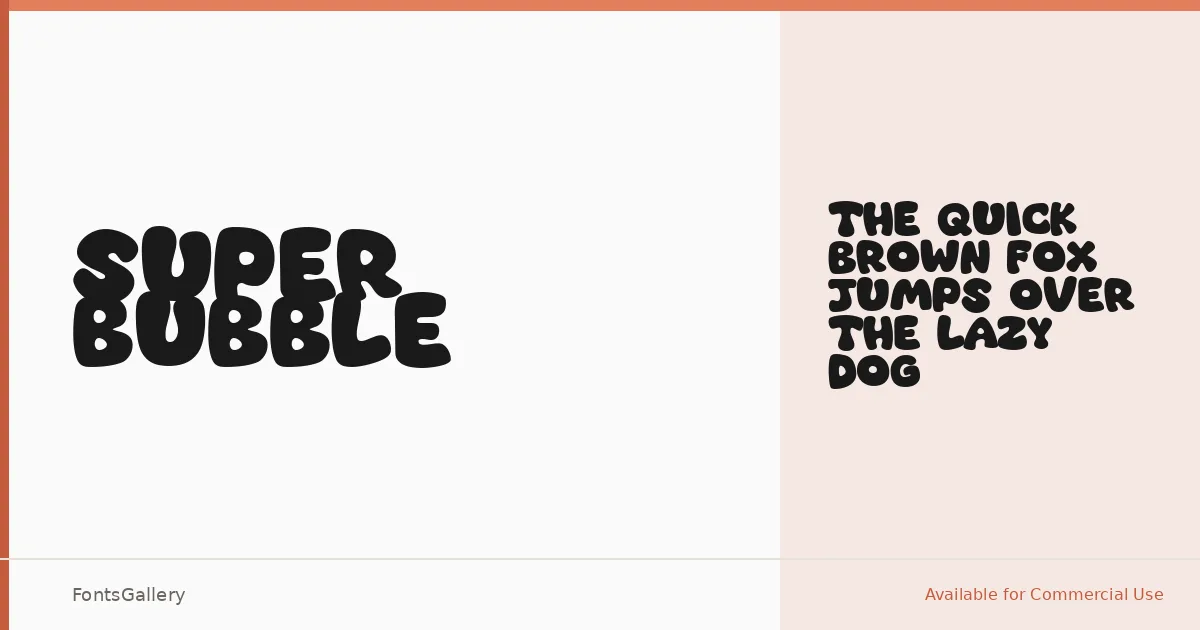
About Super Bubble Font
There is an immediate buoyancy to these letterforms — swollen, rounded, and confident in a way that reads as pure fun from the first glyph. Super Bubble is a display typeface available as a single Regular weight in TTF format, covering the Latin script. The forms lean fully into the balloon-letter tradition: thick strokes that seem inflated from within, soft corners that push right to the edge of legibility without crossing it.
This is unambiguously a display face — bold, playful, and whimsical by design, not by accident. The single Regular cut commits entirely to its inflated geometry; there are no light or condensed companions hedging the concept. That consistency is a strength. In large sizes the letters command space without needing color or decoration to do it.
The face earns its keep in branding, logo lockups, posters, and social media graphics where a headline needs genuine personality rather than authority. It works well on T-shirt design and anywhere the Latin character set is sufficient. For body copy or supporting text, pair it against the clean neutrality of Helvetica or Josefin Sans, the editorial calm of Canela or ABC Arizona, or the friendly readability of Asap — any of these create enough contrast to let the display work do its job without competition.